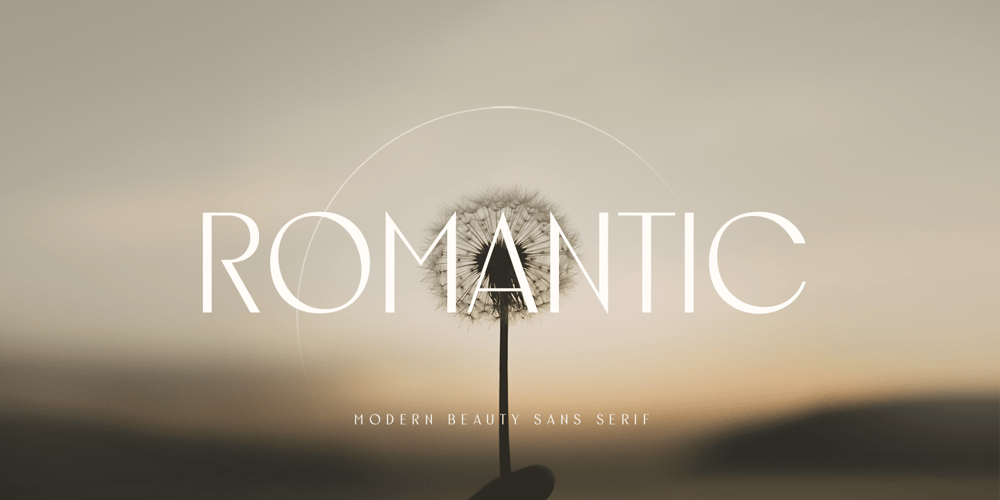
Romantic SS Font Family was designed by Zamroni Hamzah and published by Sensatype Studio. Romantic SS contains 1 styles and family package options. Romantic is a Modern Beauty Sans SerifA Sans Serif font that we created special for branding needs with classy shape to add value of your brand. It’s so nice to leverage designer or product owner that need solutions to make their design look more classy and fashionable. And specially for Romantic font, We prepared any characters with Elegant shape to help you create classy style of your design.Romantic Modern Beauty sans serif font ready with: Lowercase and Uppercase characters Numbers and Punctuations Preview as a inspirations that you can do with Romantic font Wish you enjoy our font.